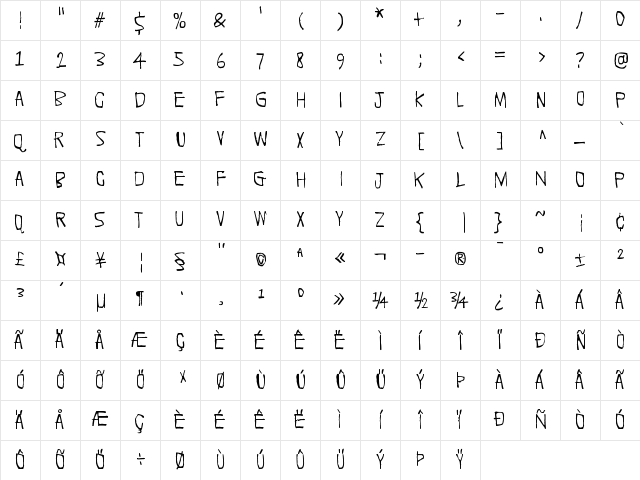
Quick Pangolin Regular
Design Context for Quick Pangolin Typeface
Quick Pangolin is a composed and adaptable typeface that performs quietly and consistently across a wide range of design contexts.